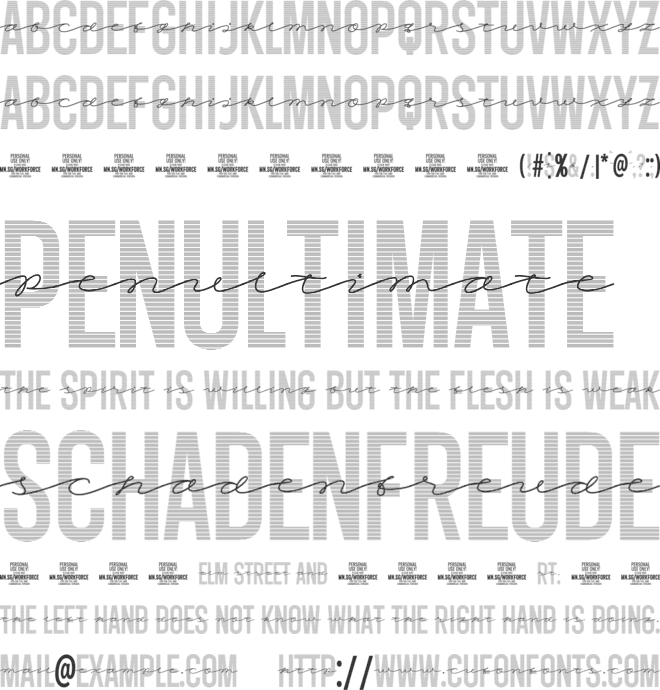
Workforce Combine PERSONAL USE Font
Please be aware that this font is only for personal use. To buy a commercial license, please go to this link: http://mn.sg/workforce. Workforce is a captivating combination of contemporary script and sans-serif typography, designed for logos and graphic design work that aims to make a strong impact. If you have any inquiries, visit www.mansgreback.com/faq.